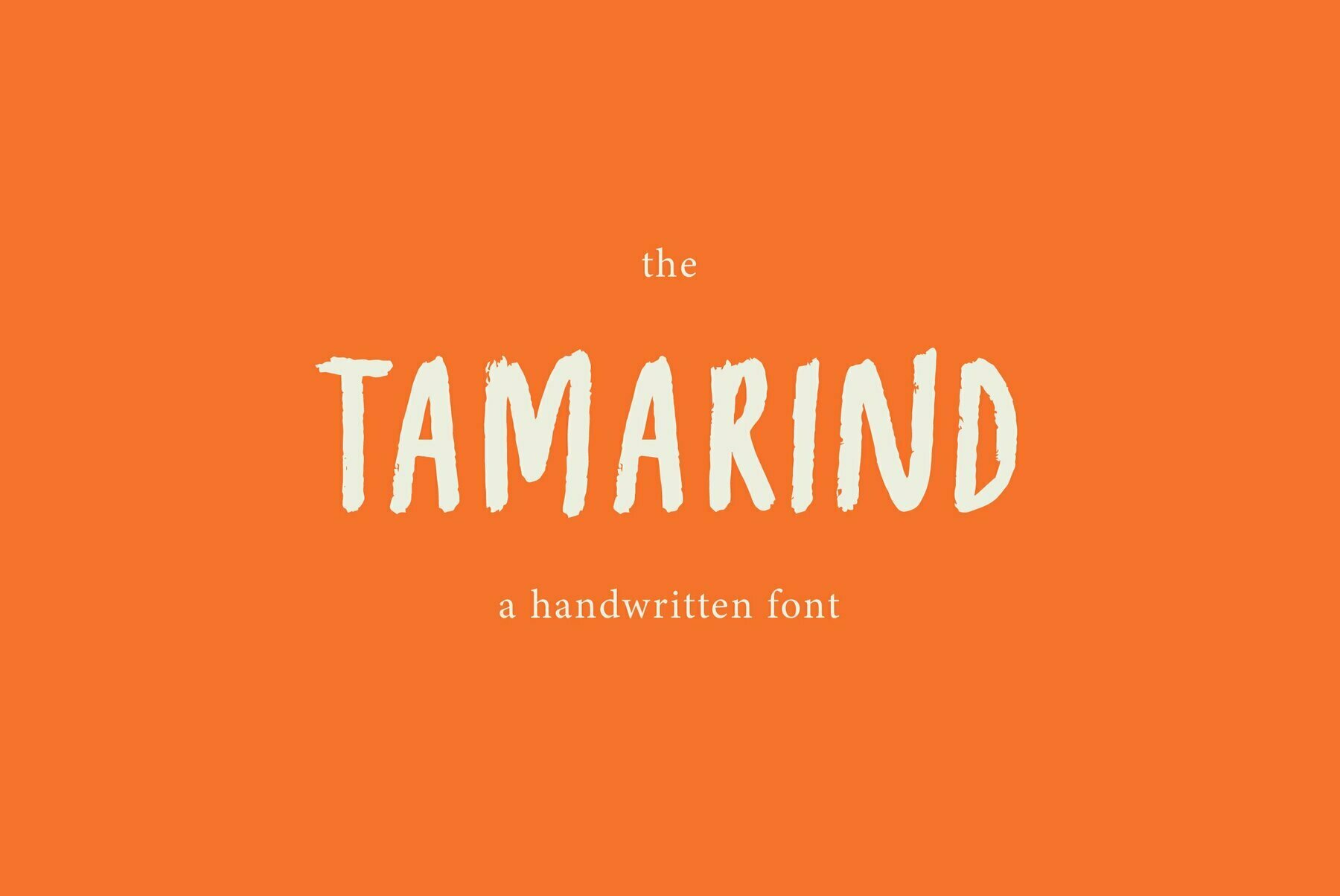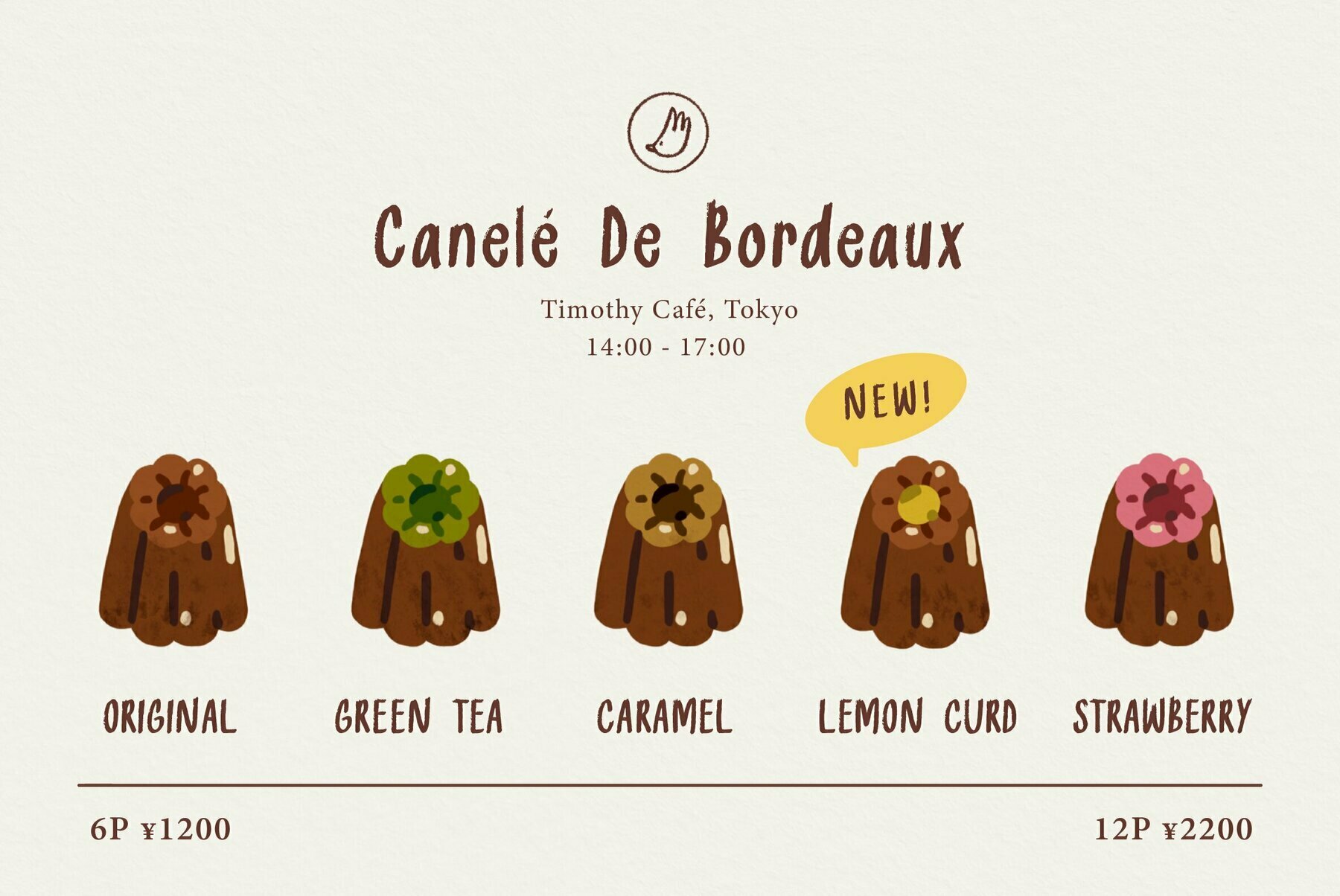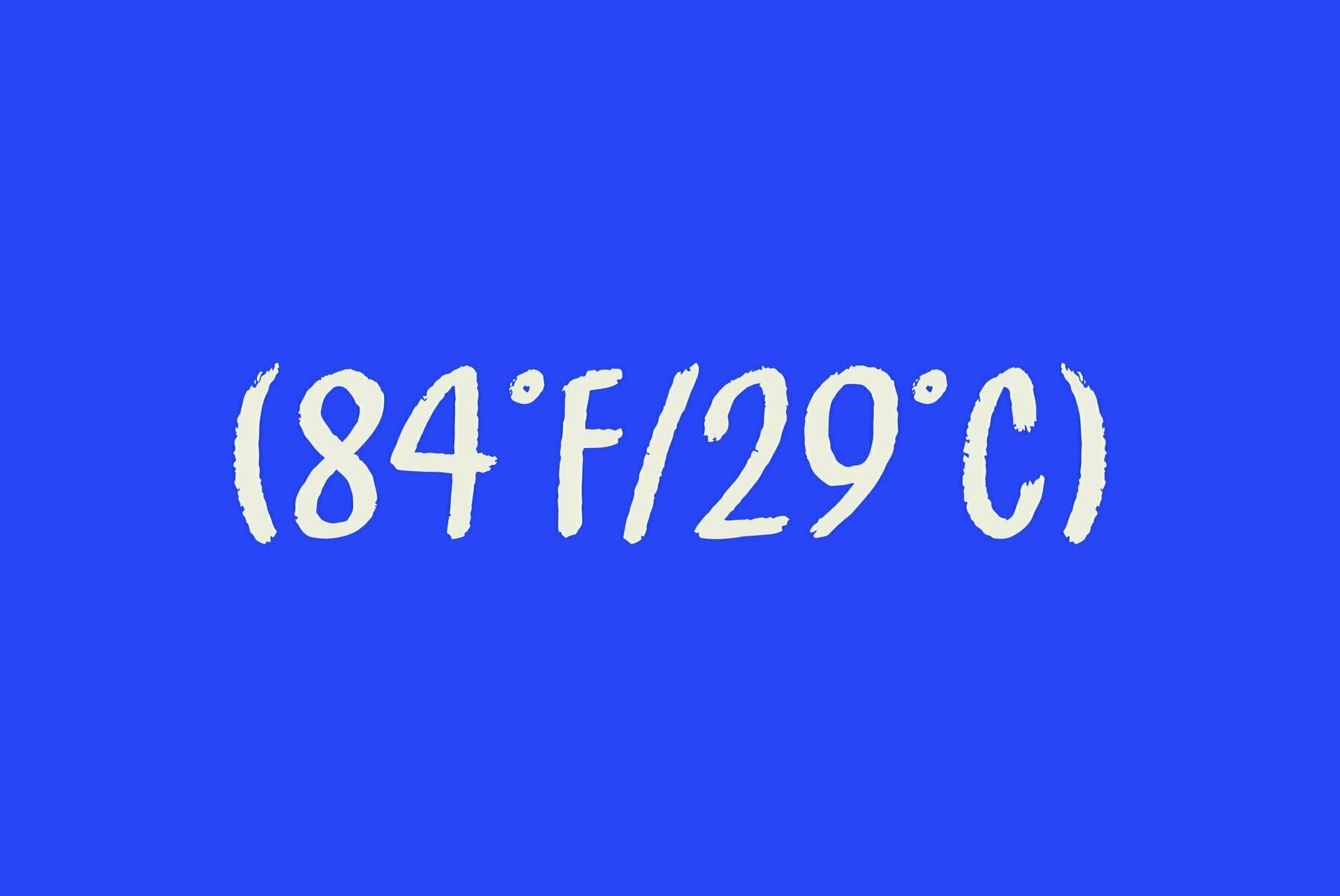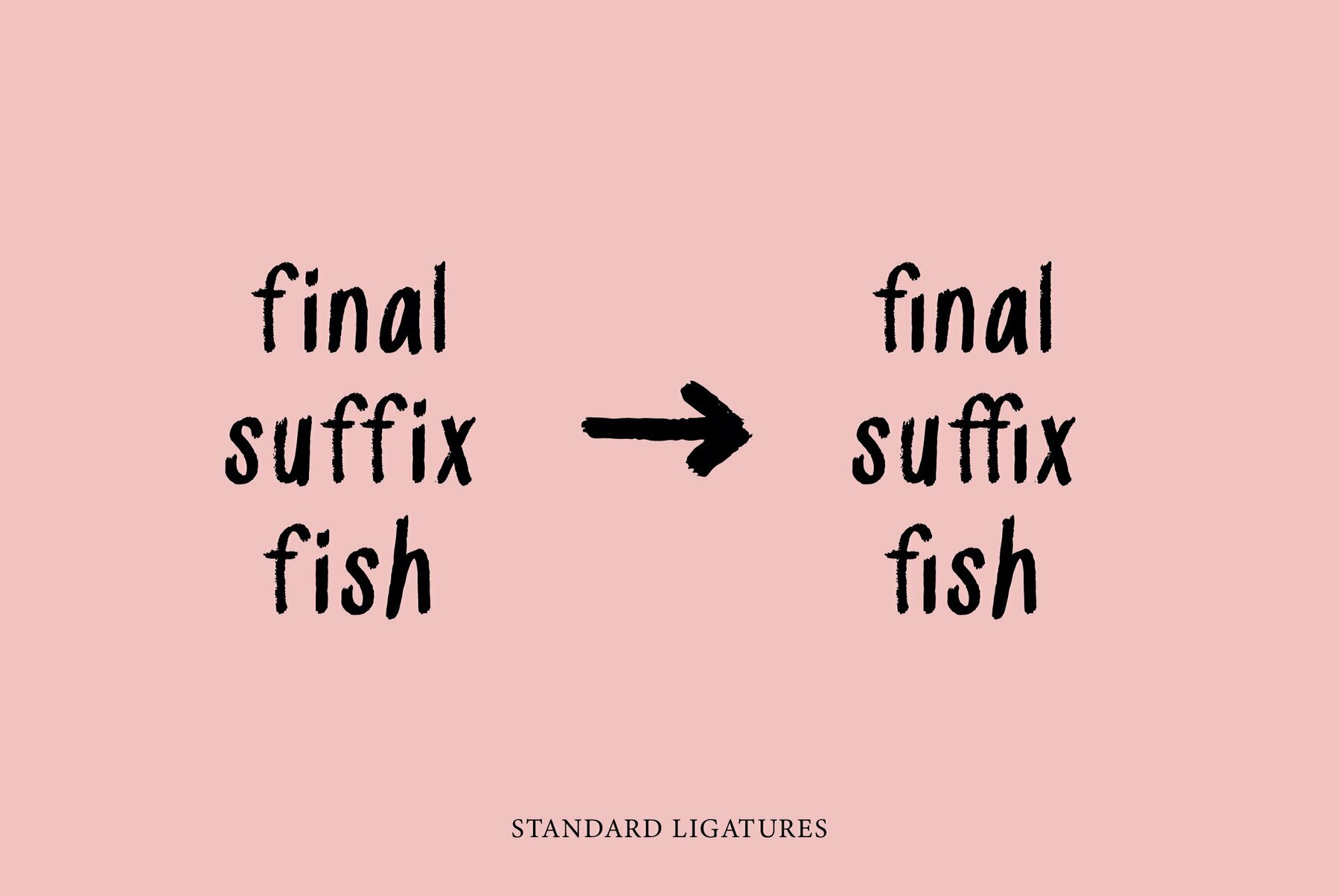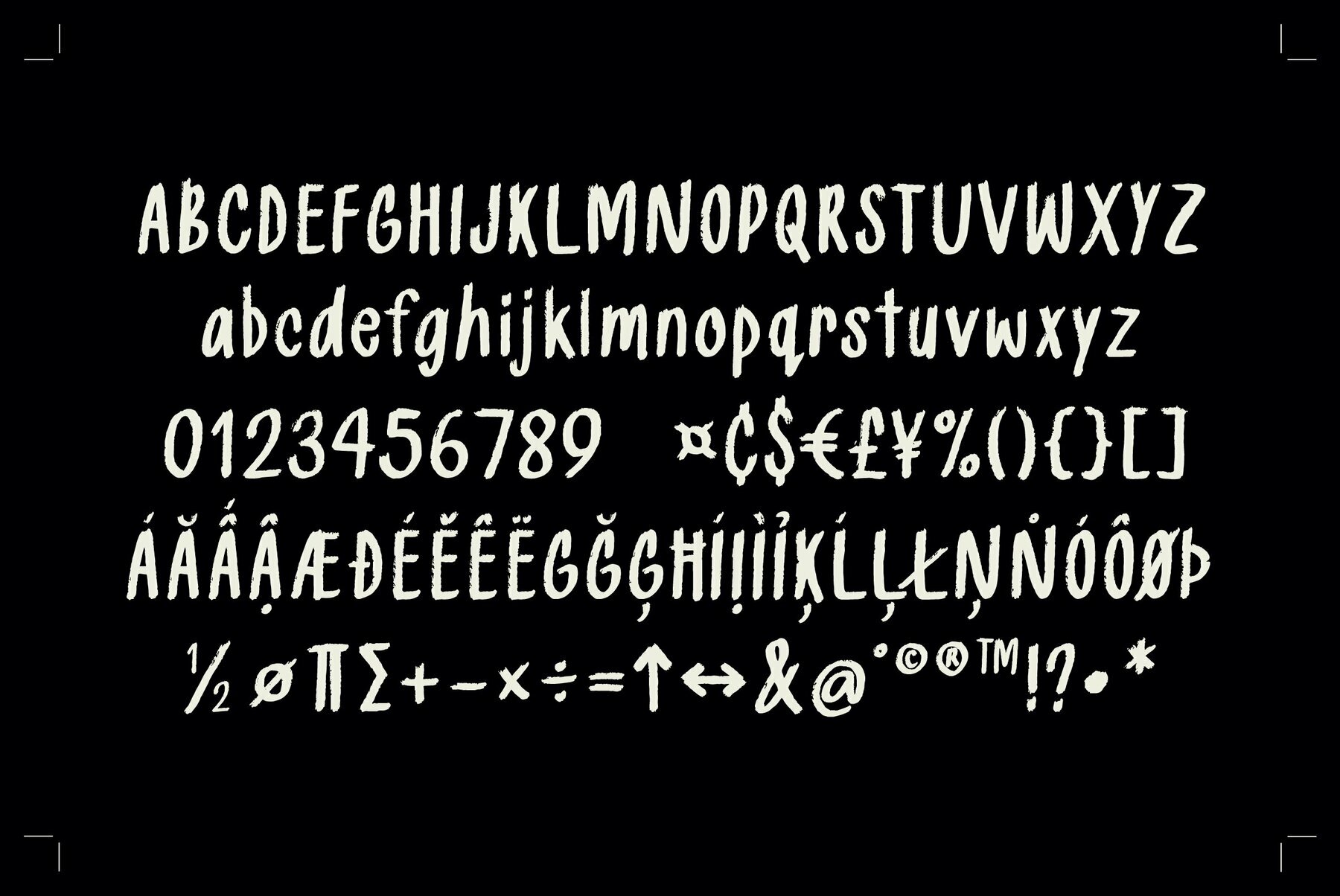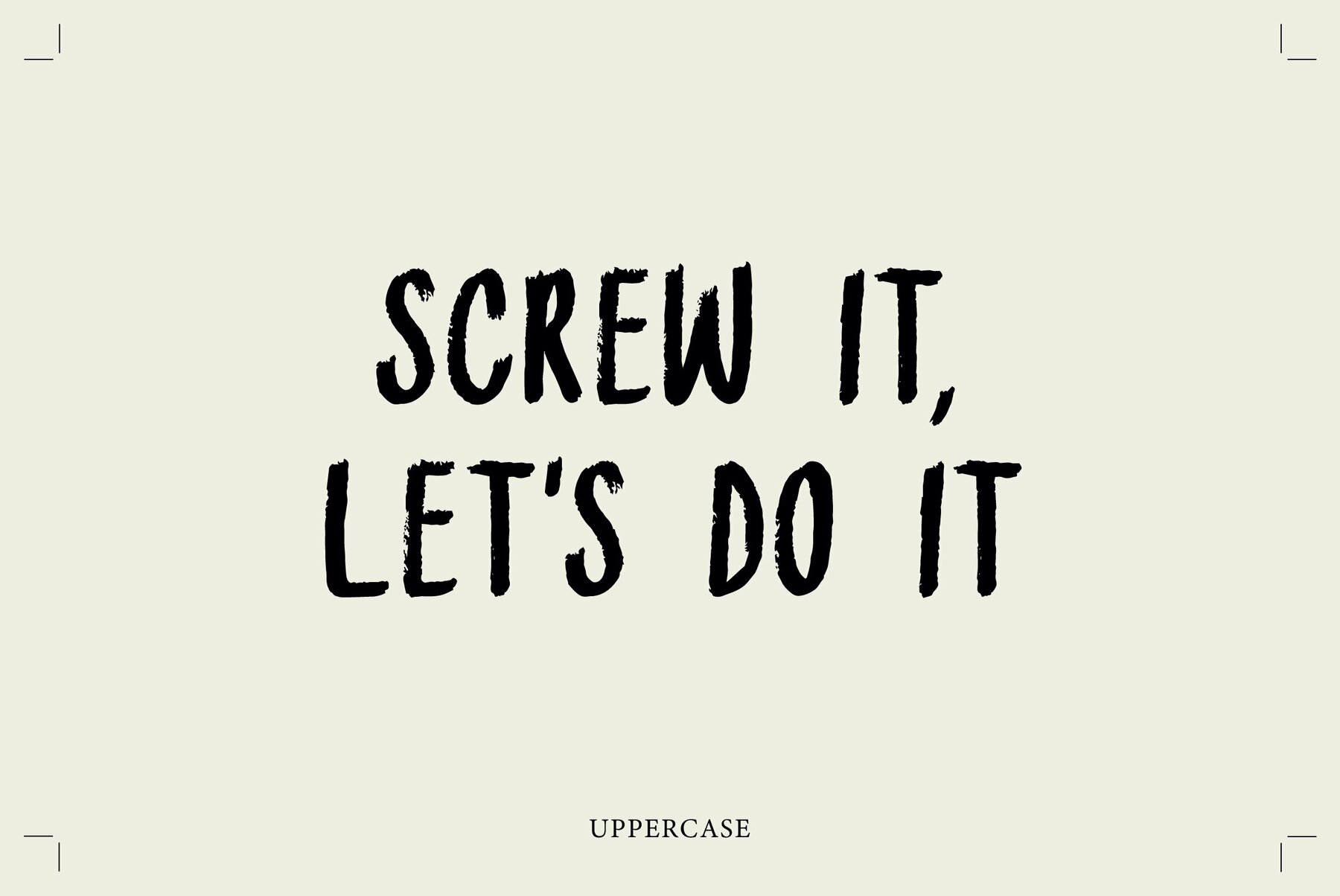
Tamarind Font
Tamarind Regular
Tamarind is a rough textured handwritten font. It gives handmade touch for branding projects, invitation design, packaging, kids related projects and works perfectly with other fonts.